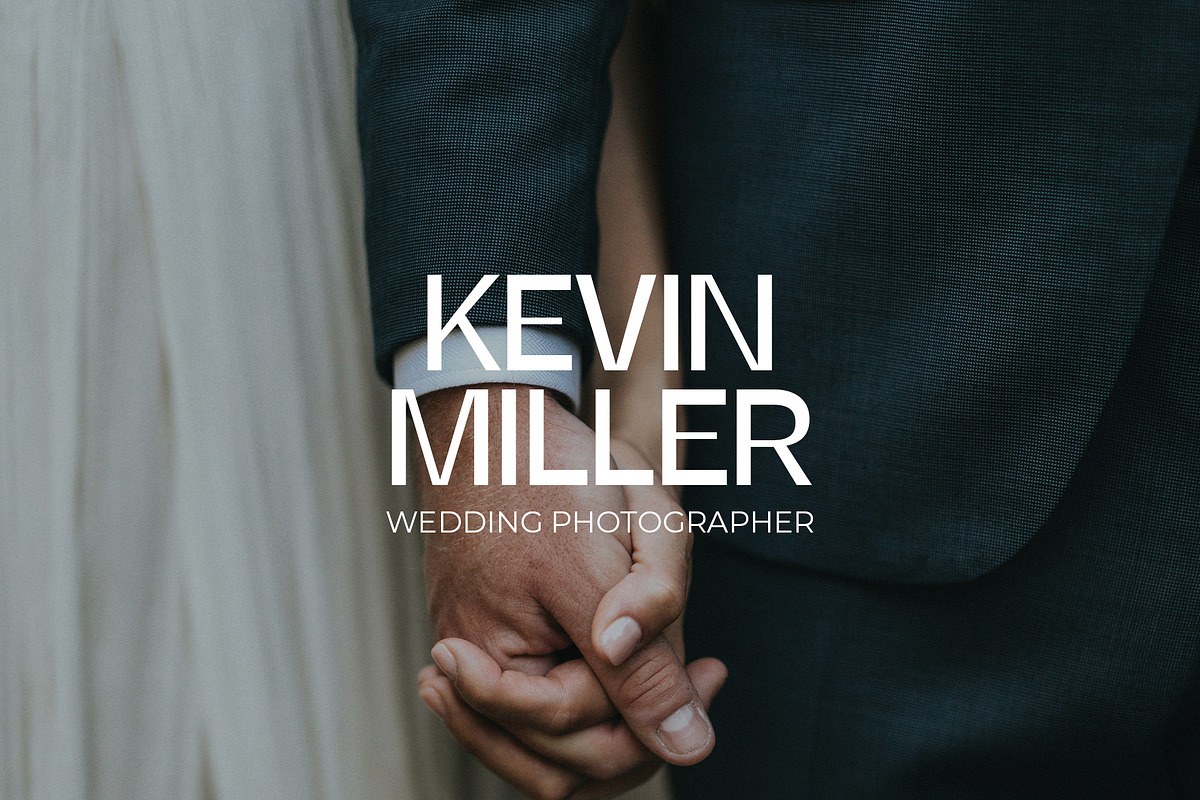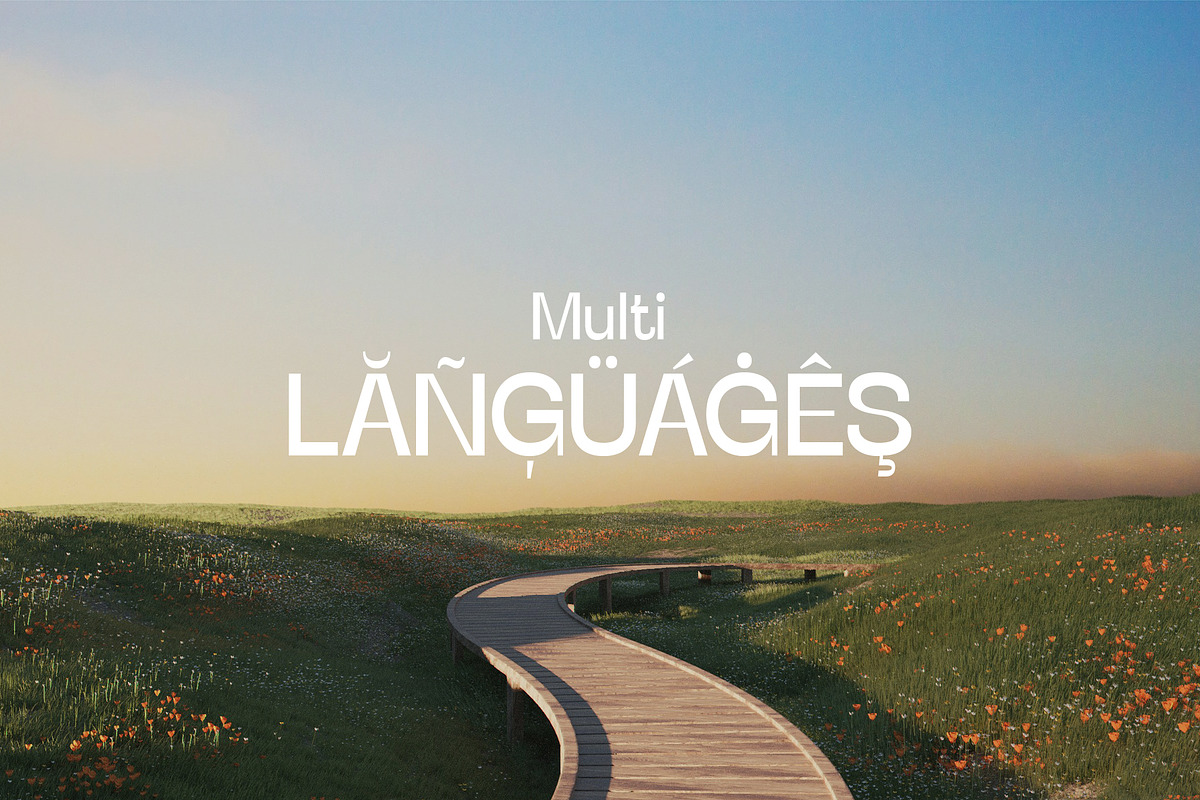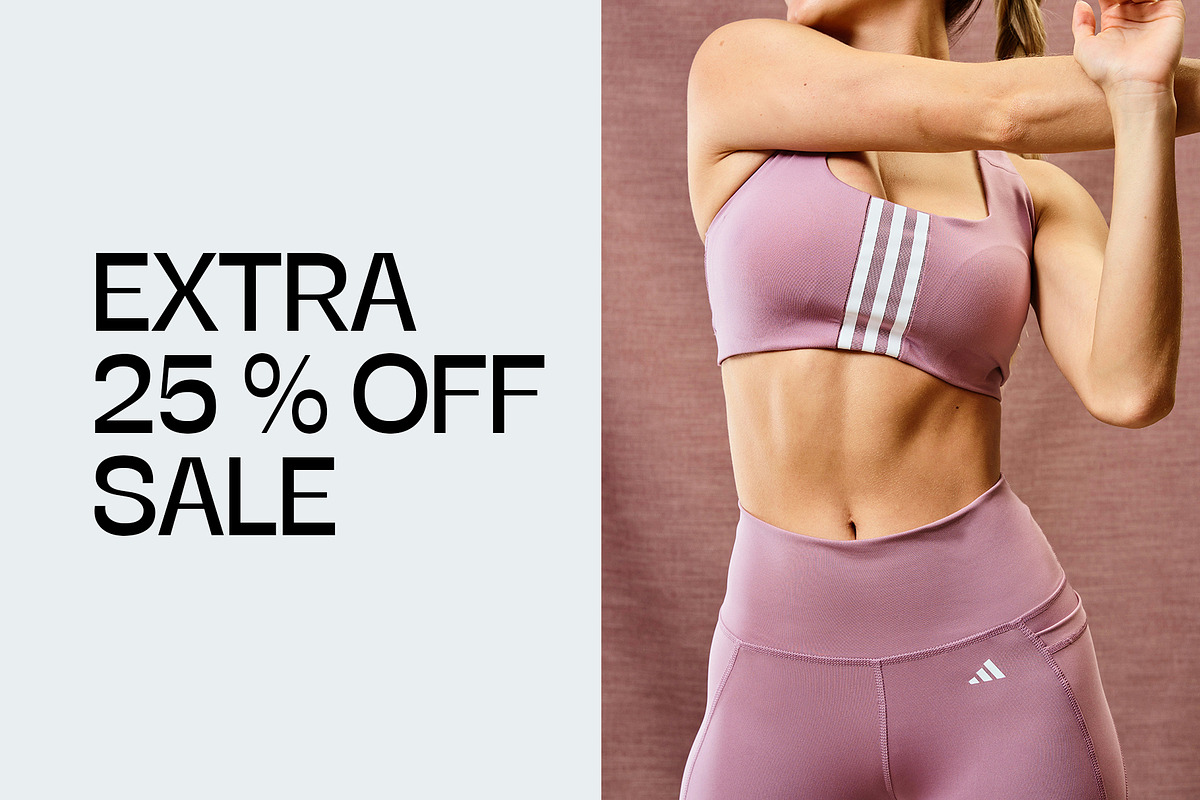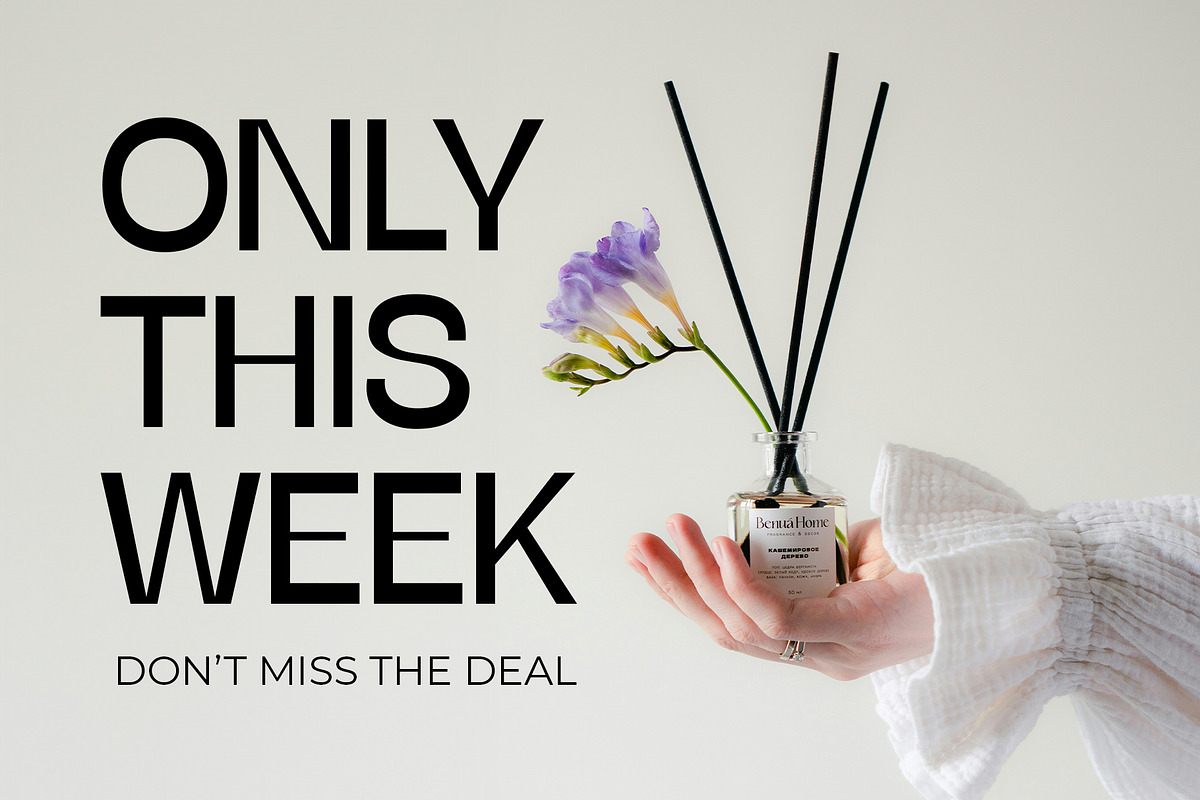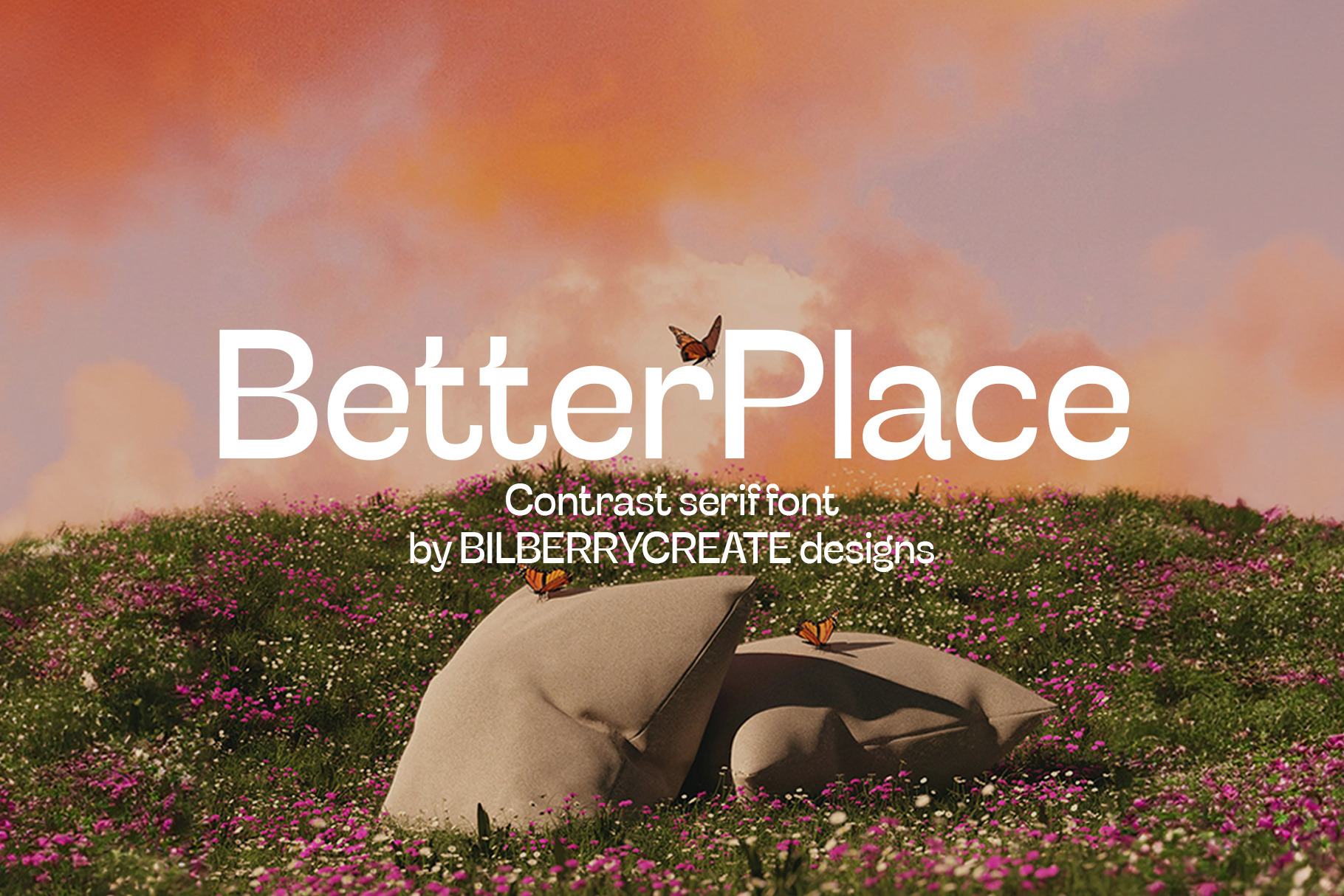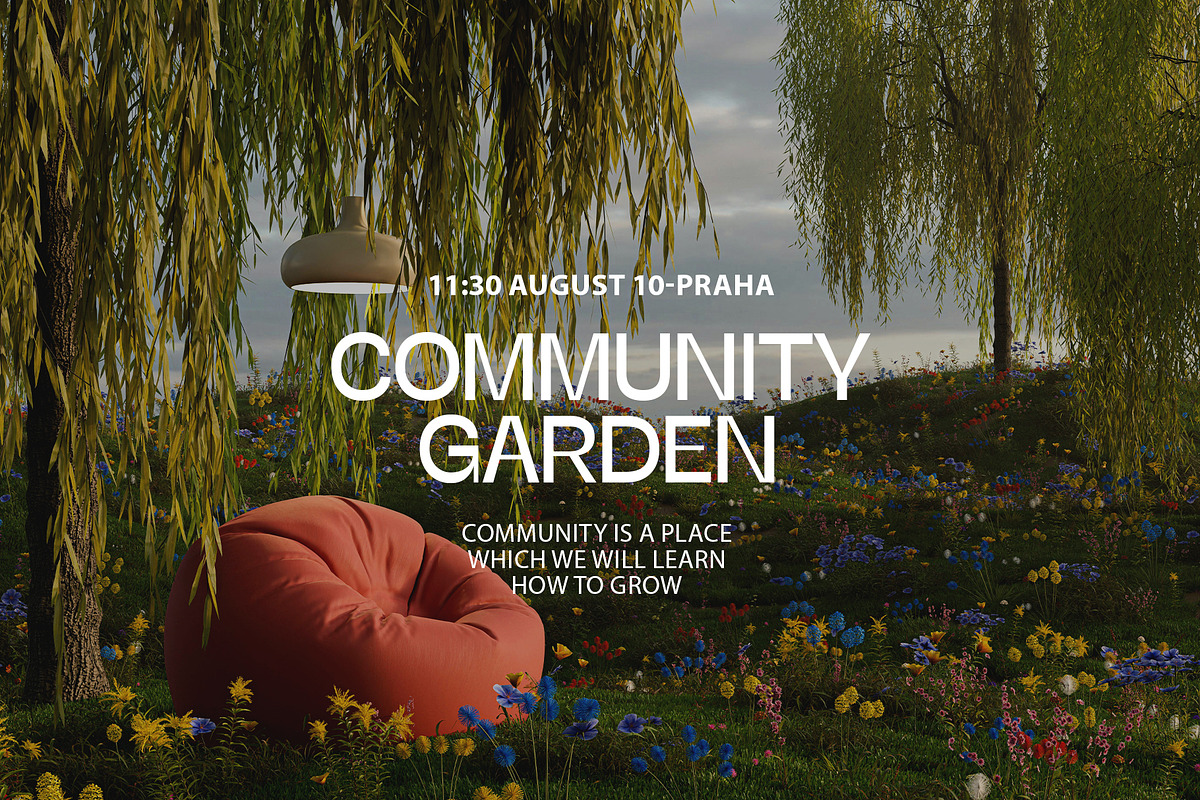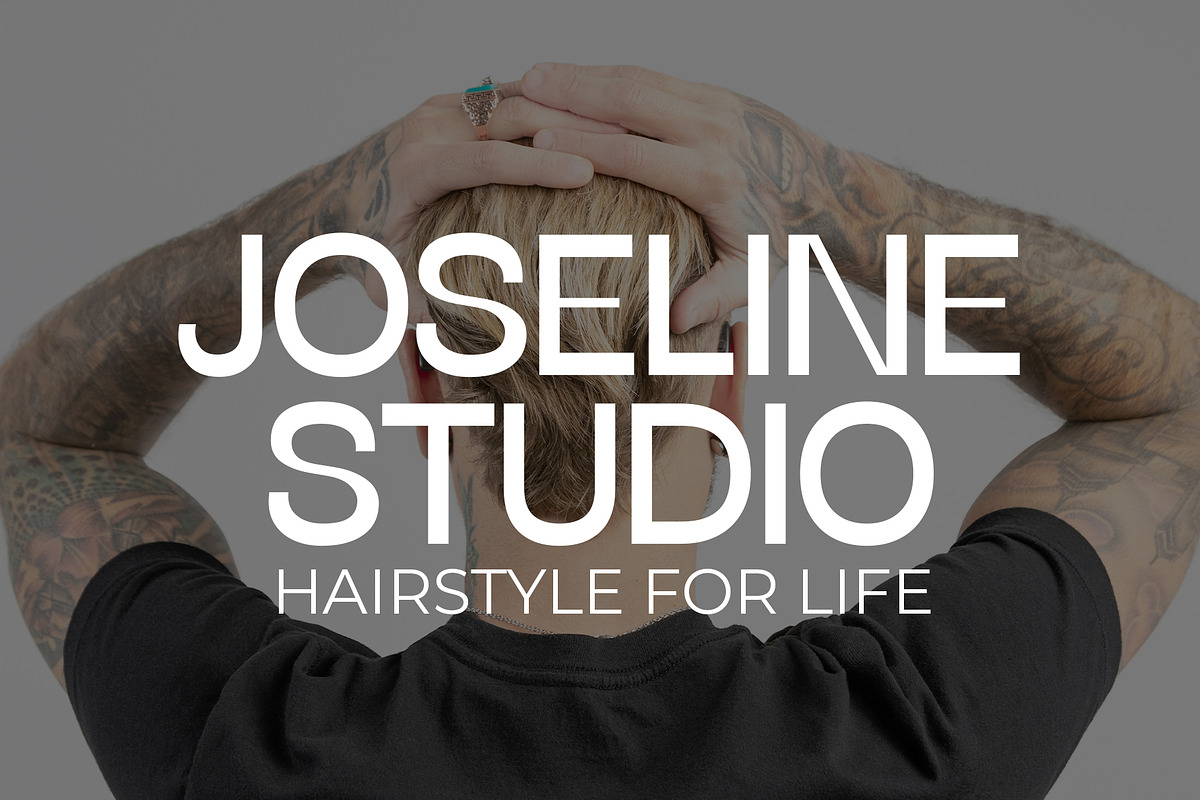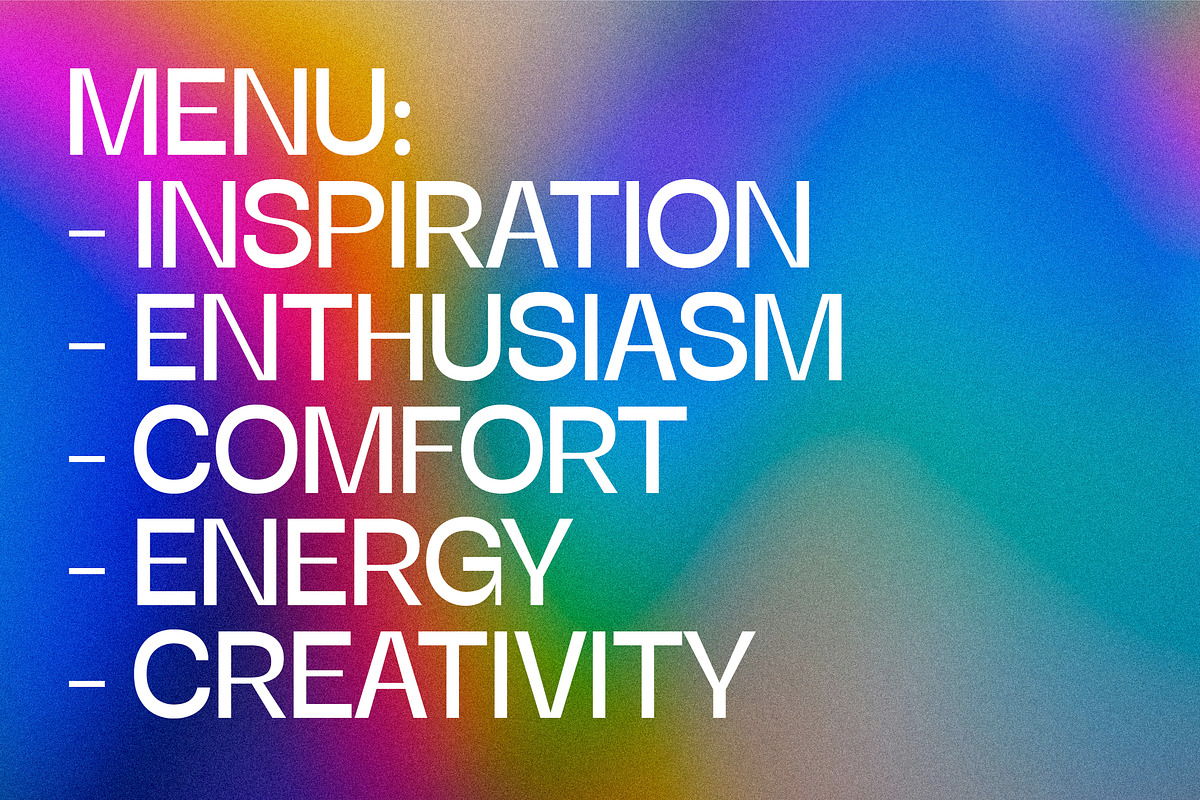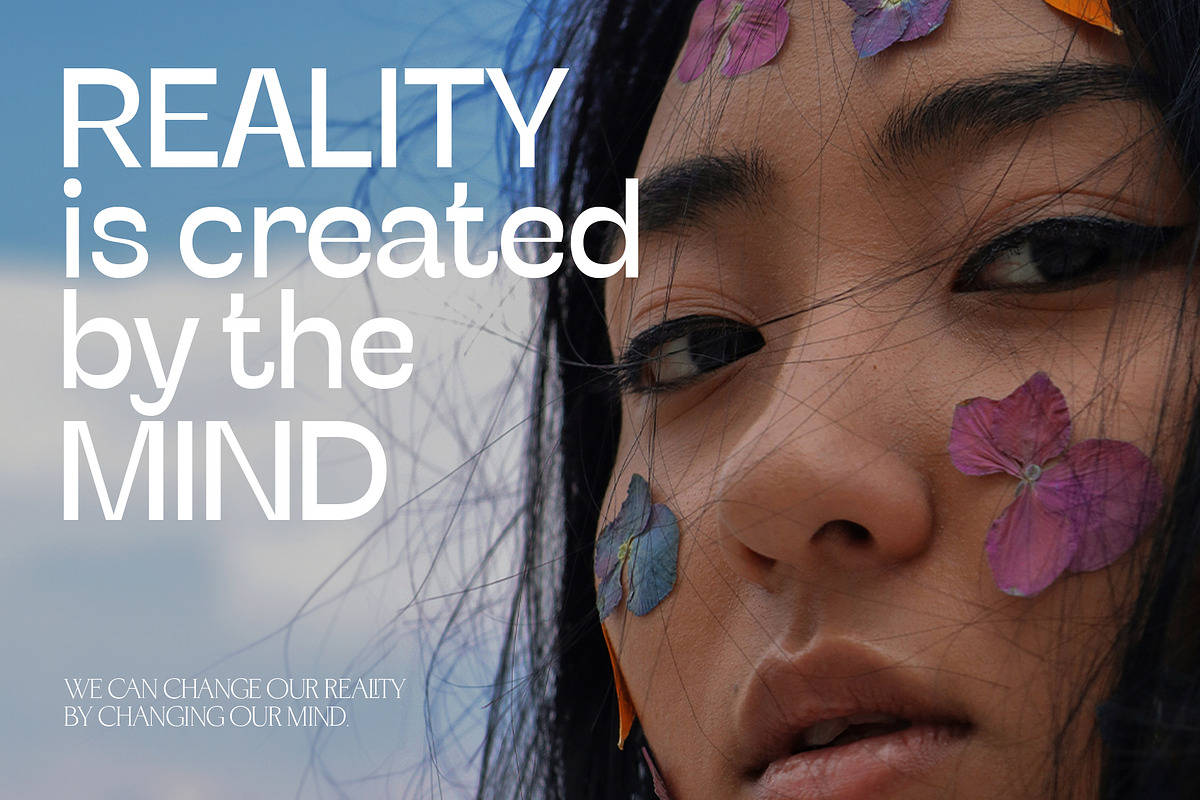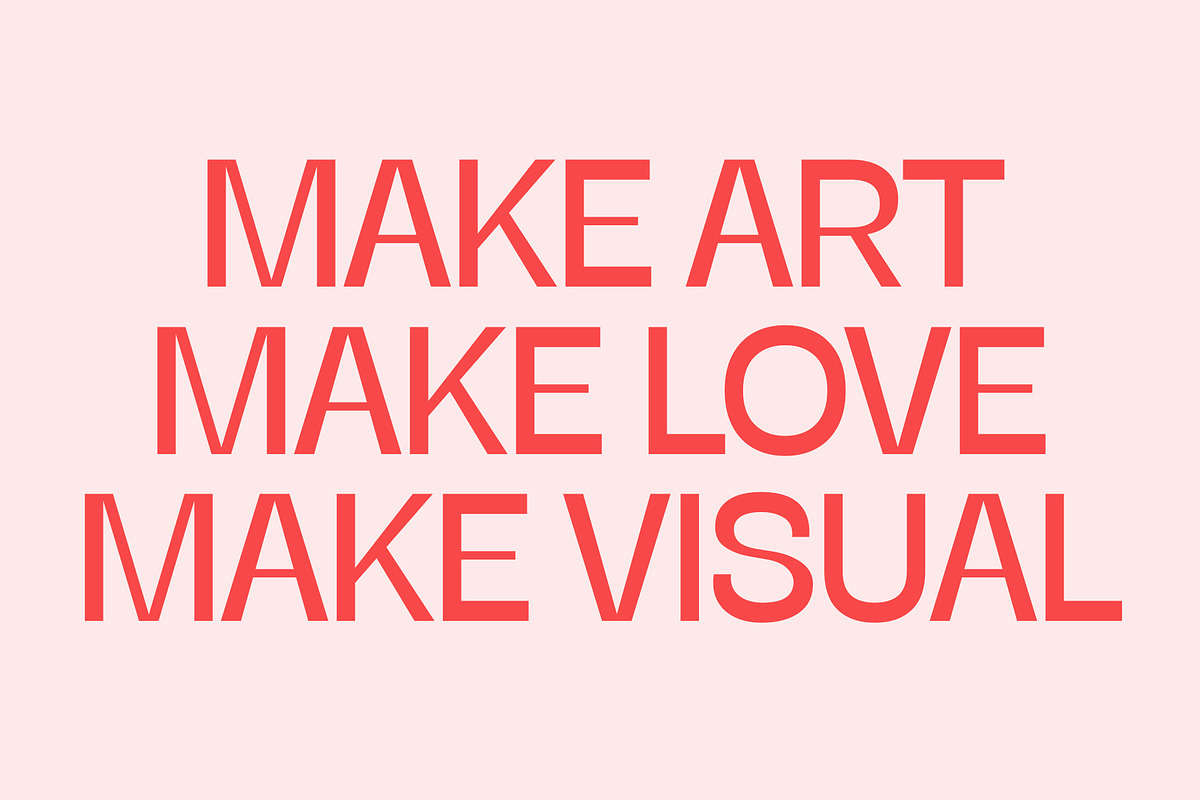
Better Place - Contrast serif font
This is a perfect contrast font for any project. Be sure to click on the image to see all elements. This product was created to help you make your digital images even more beautiful and unique.